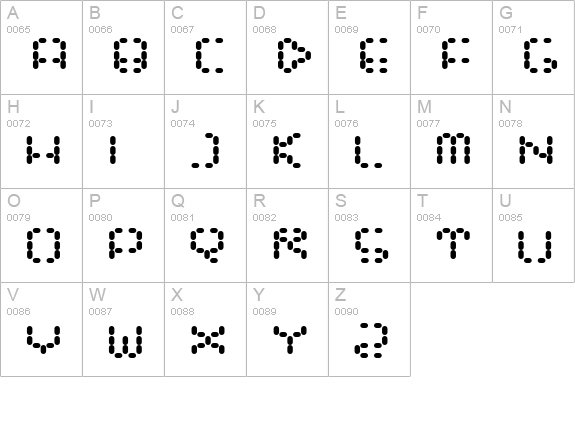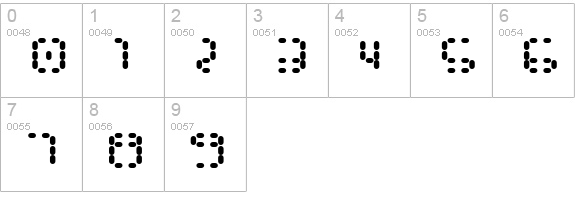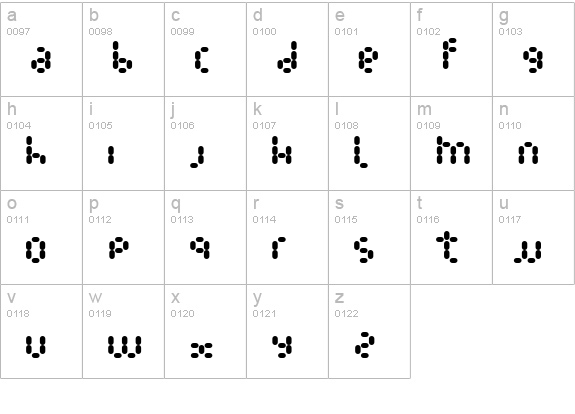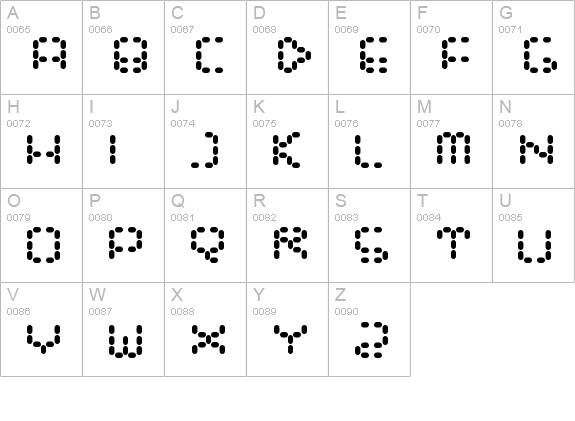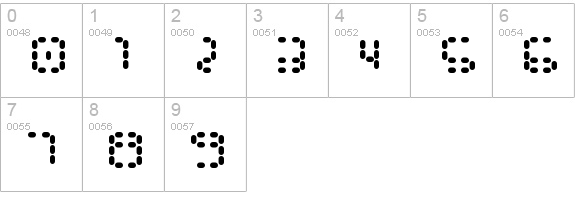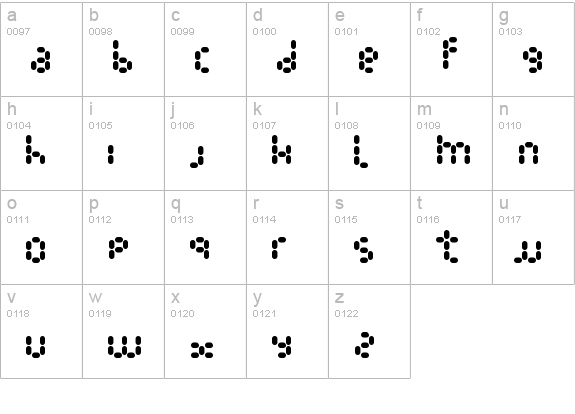
Gathora Font Details
Introducing Gathora font, a captivating typeface that exudes elegance and sophistication with its sleek and modern design. This versatile font is perfect for a wide range of projects, from branding to editorial design. With its clean lines and stylish curves, Gathora font adds a touch of class to any text. What makes Gathora font even more appealing is that it is available for free download at FontsMarket.com. Yes, you read that right - this stunning font can be yours at no cost! Whether you're a designer looking to elevate your creations or a business owner seeking a fresh look for your brand, Gathora font is sure to impress. Download it today and see for yourself the impact it can make on your projects.